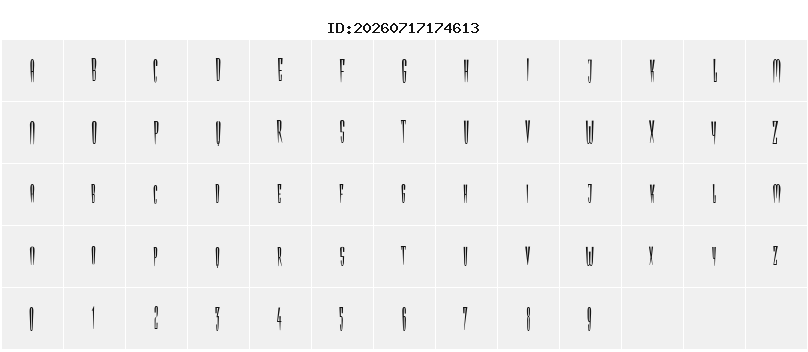
Bgirlfriend Preview
• Font Name: Bgirlfriend
• Full Font Name: Bgirlfriend
About Bgirlfriend.ttf
Bgirlfriend.ttf is a modern, elegant sans-serif font designed for ultimate readability and visual harmony. Perfect for branding, headlines, web design, and print materials.